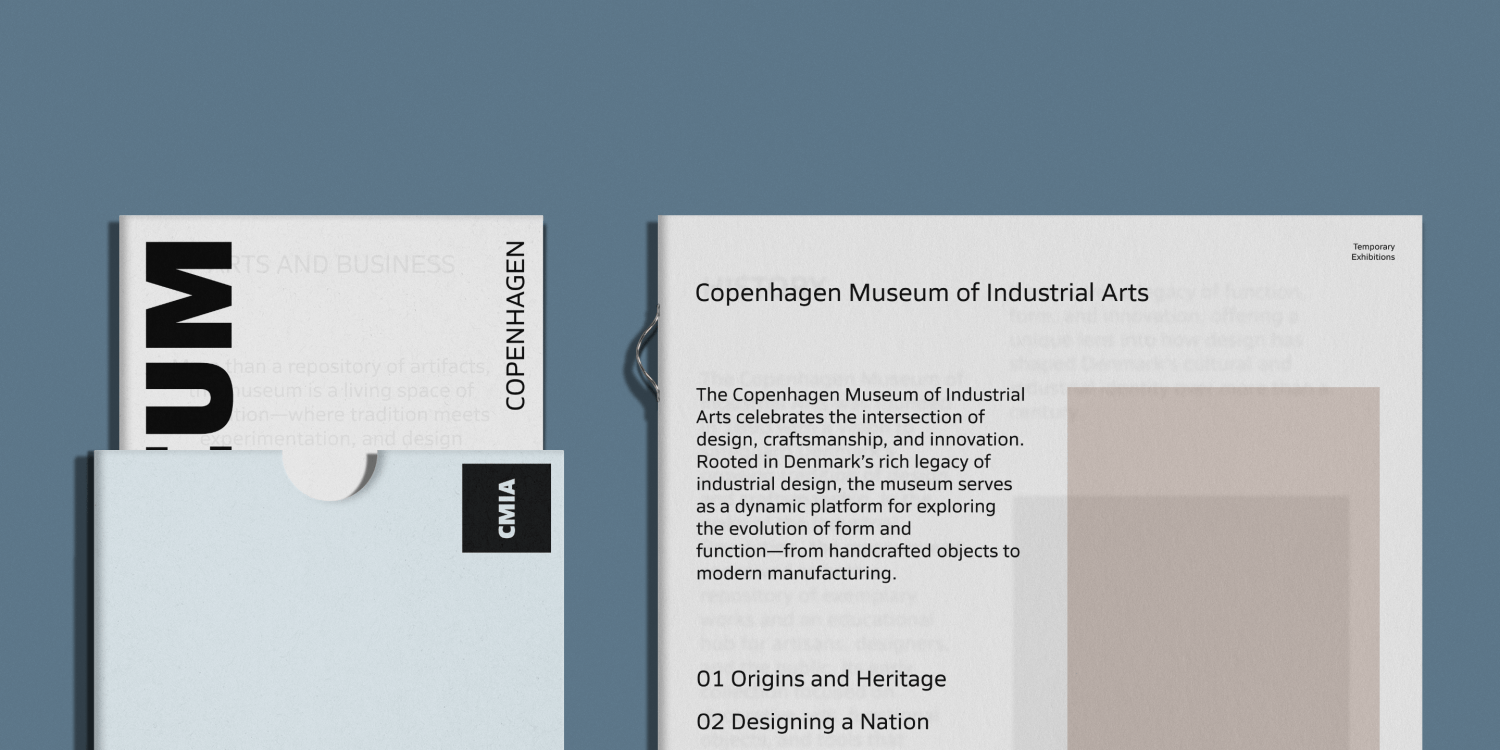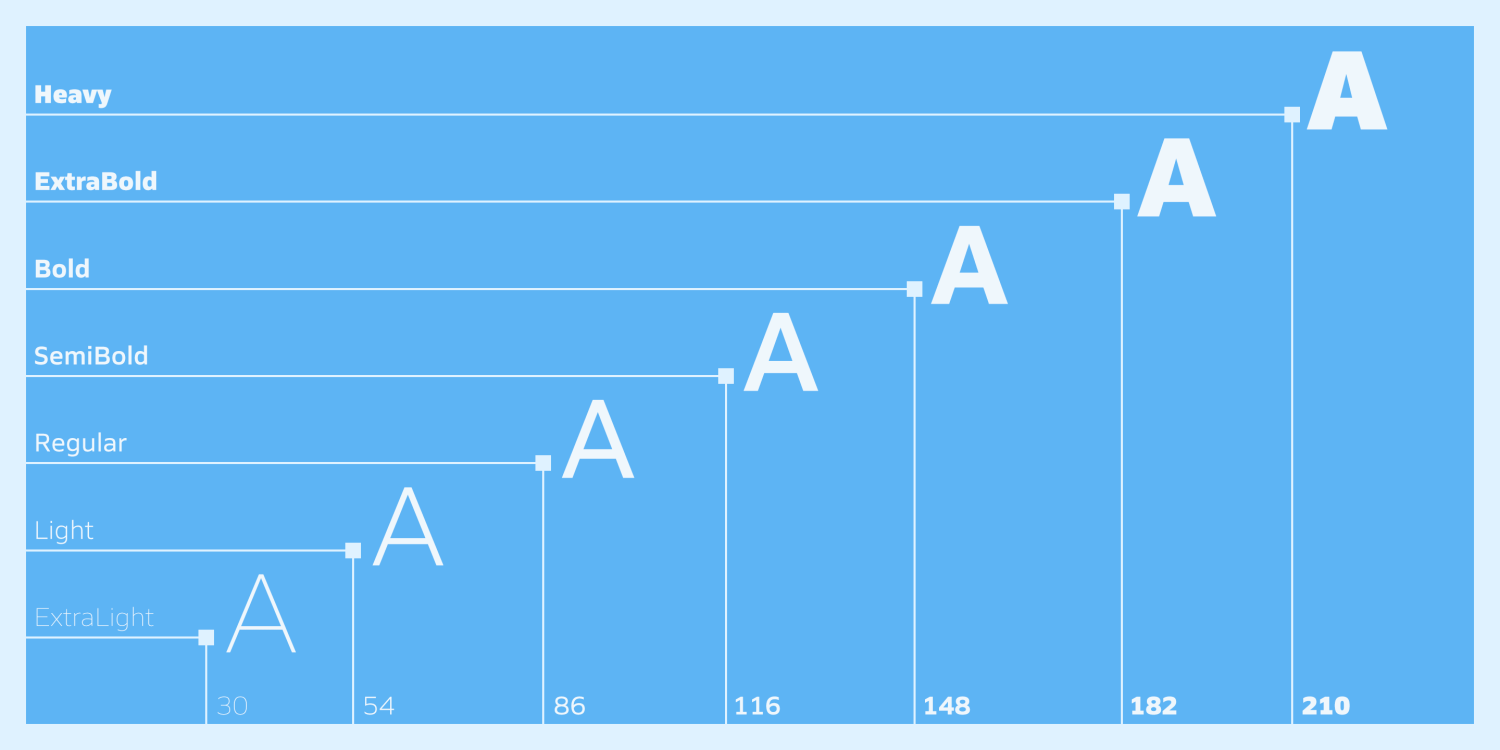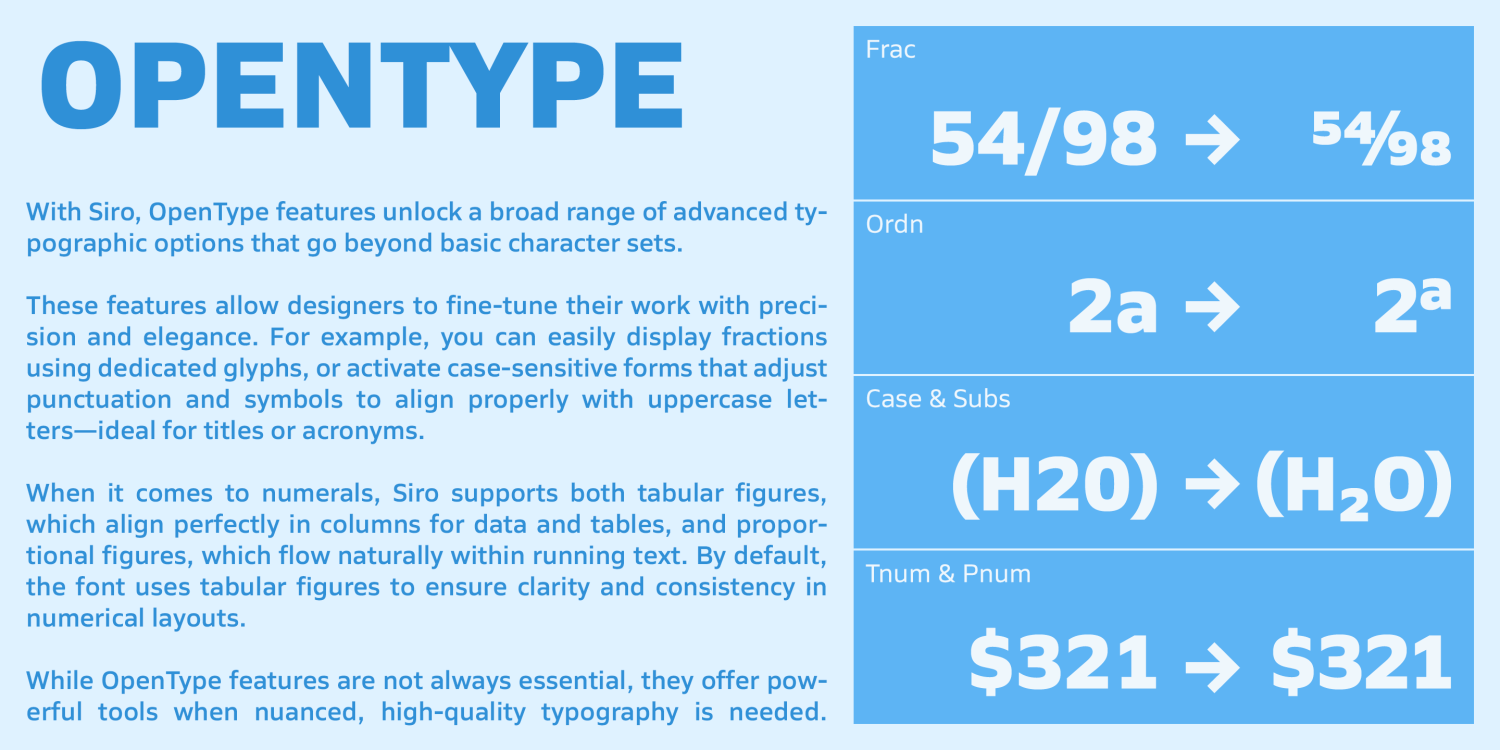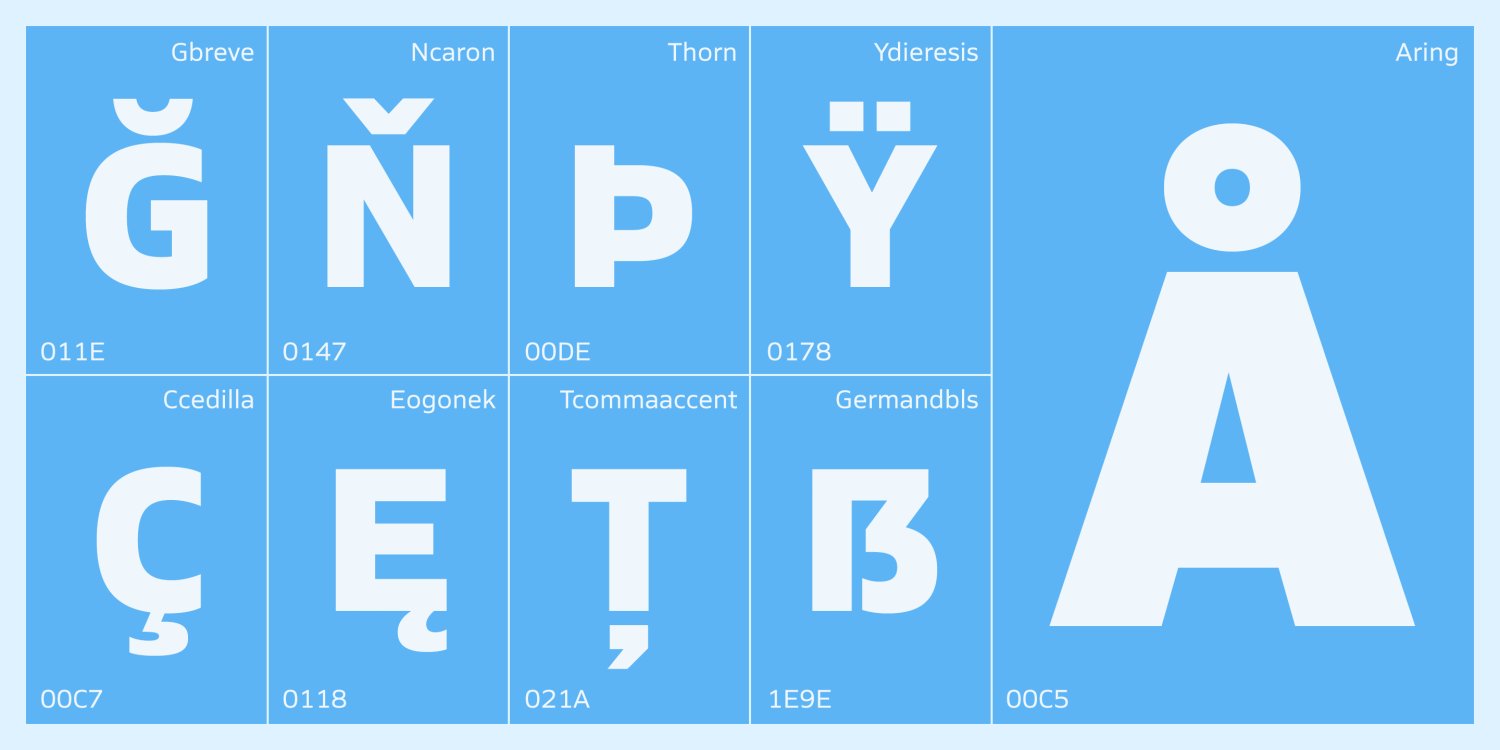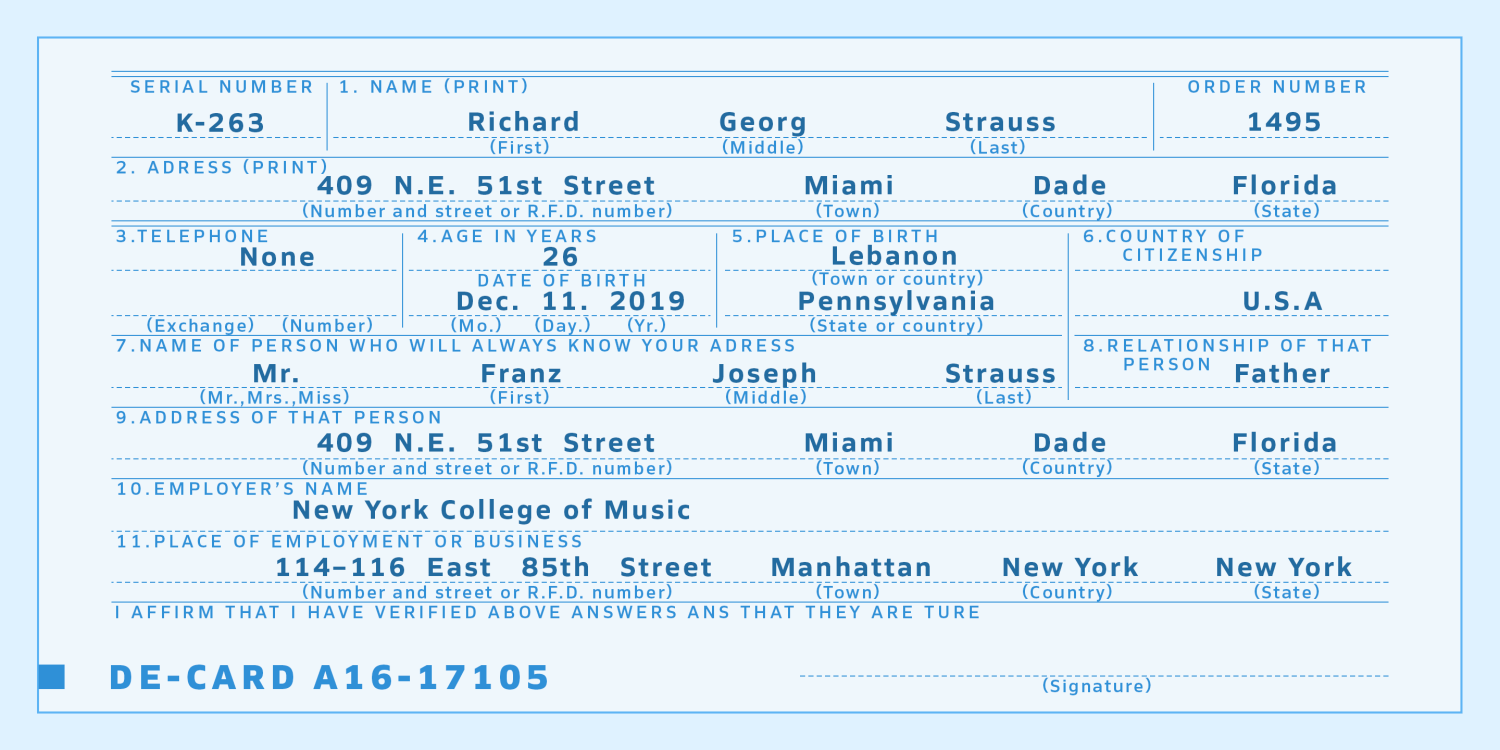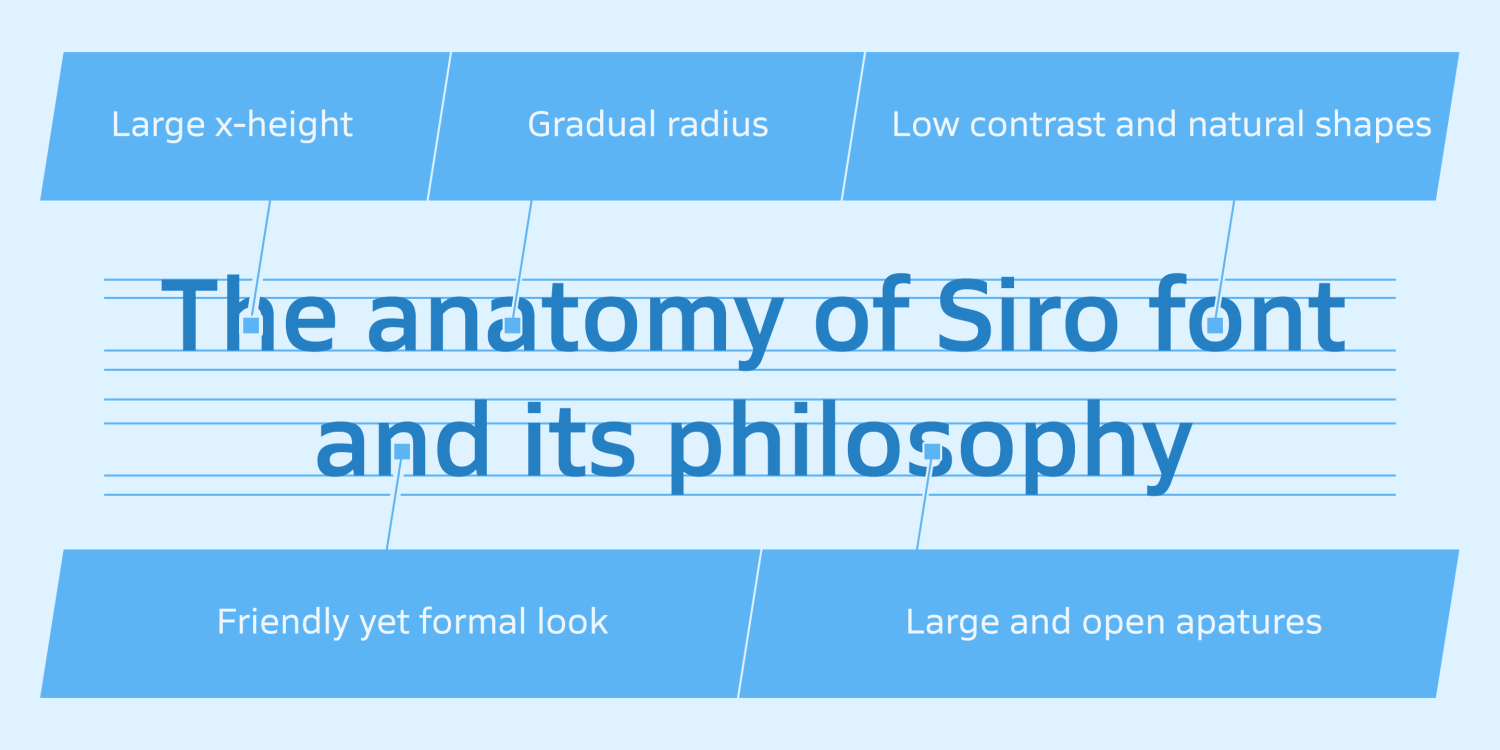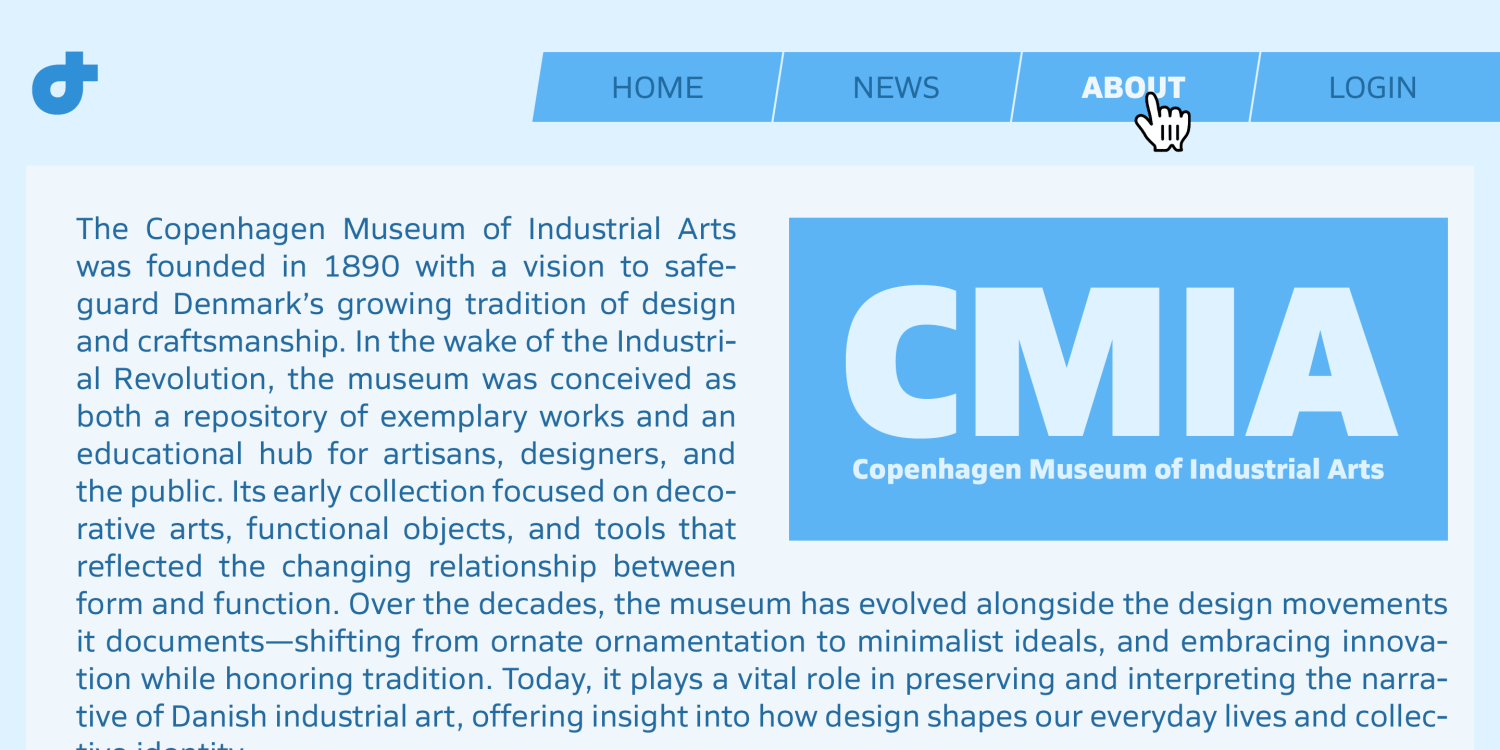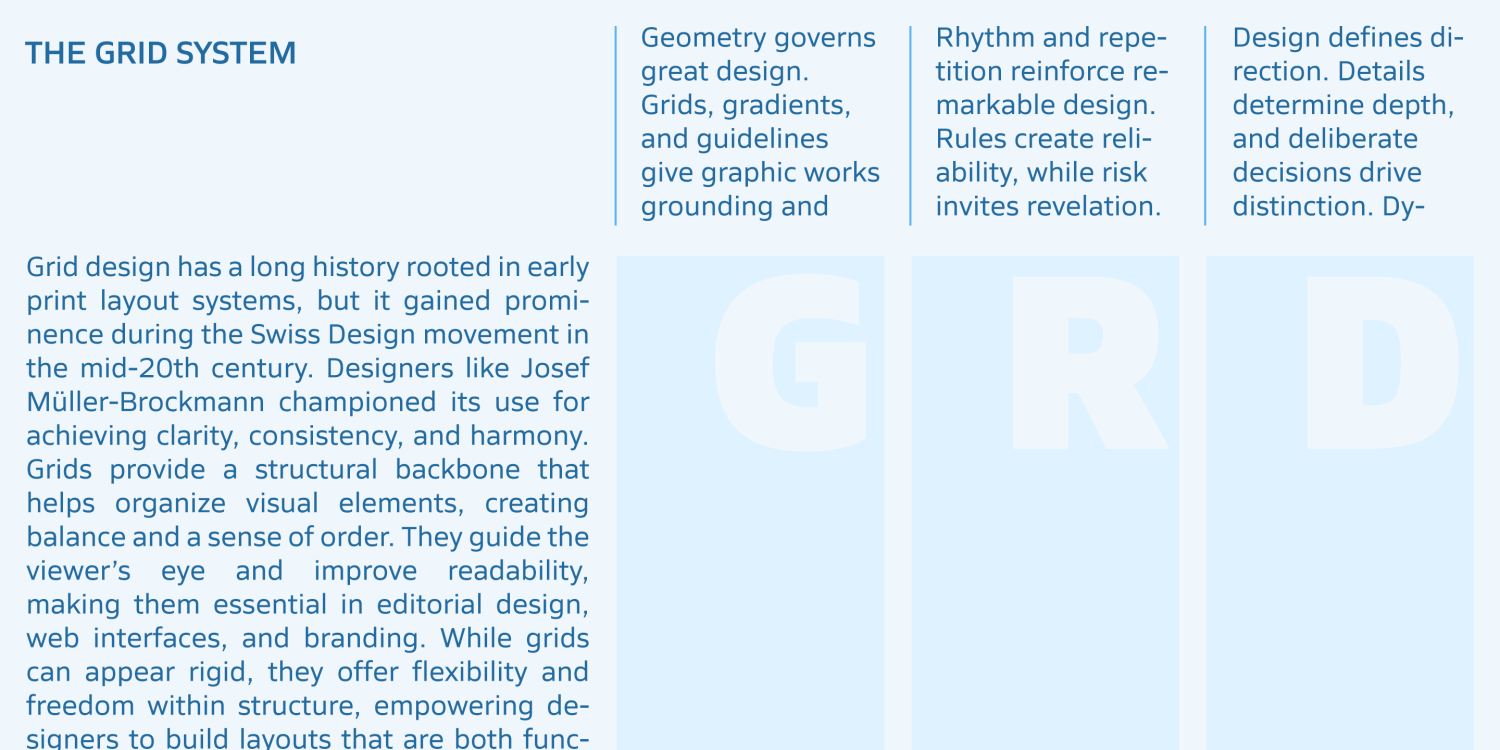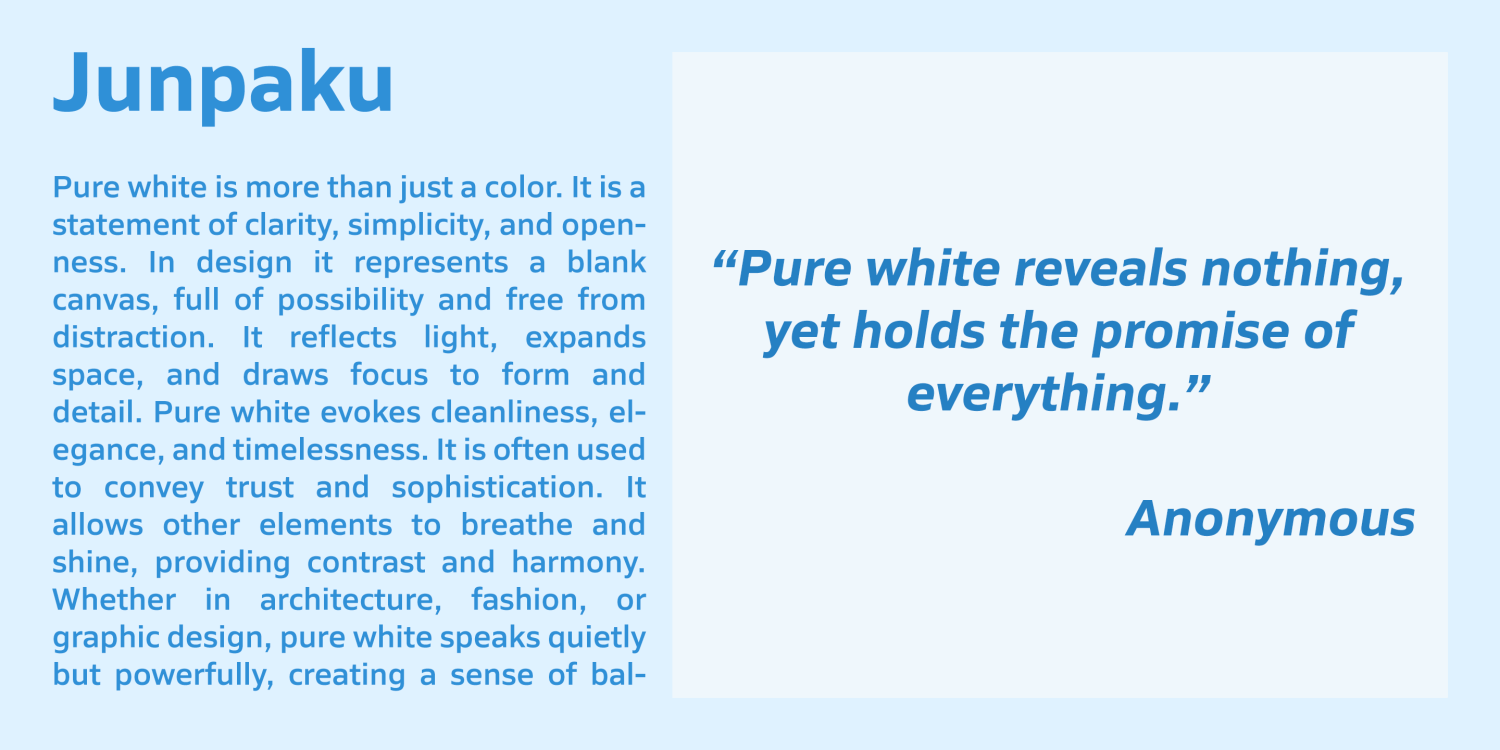
Siro
Siro is a sans-serif type family designed by Ryoichi Tsunekawa, optimized for text with a focus on clarity and usability.
The family includes 7 weights from ExtraLight to Heavy, each with matching italics, providing flexibility for both print and digital applications.
Built on a simple, clean letterform skeleton, Siro was designed to convey a neutral, natural impression.
Its very large x-height enhances legibility and readability, especially on small screens and in compact layouts.
Siro supports a wide range of European languages, including Western, Central, and South Eastern European languages, as well as Afrikaans.
It also features a robust set of OpenType features, including proportional figures, superior/inferior figures, denominators, numerators, fractions, ordinals, and case-sensitive forms, making it highly functional for complex typography.